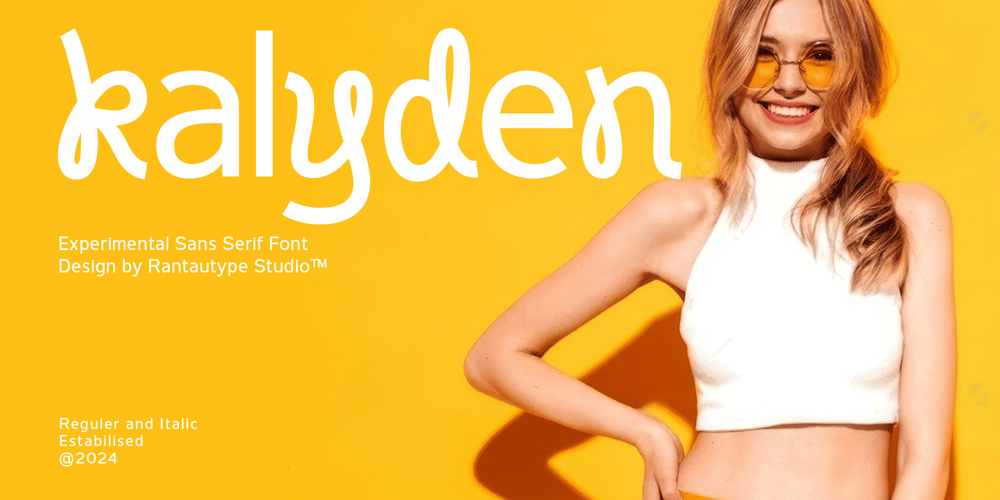
Kaliden Font Family was designed by Yudi Pratama Chandra and published by RantauType. Kaliden contains 2 styles and family package options. Kaliden is a experimental unique font with modern visual design. Kaliden come with unique alternate shape in Uppercase and Lowercase make your design project more memoriable and sophisticated. We keep this font look modern, elegant, unique, memoriable and eye catch.Kaliden is a perfectly choice for any creative endeavor, chic, lifestyle design such as logos, advertisements, watermark on photography, stationery, branding project, display and magazine, invitation, corporate brand, product design, label, business project and many other project with elegant touch.What you have: Standart Glyphs Numberial and Functional Alternate and Ligature Works on PC & Mac Simple installations Accessible in Adobe Illustrator, Adobe Photoshop, Adobe InDesign, even work on Microsoft Word. Fonts include Multilingual Character for: Afrikaans, Albanian, Asu, Basque, Bemba, Bena, Breton, Chiga, Cornish, Dutch, English, Estonian, Filipino, Finnish, Friulian, Galician, Gusii, Indonesian, Irish, Italian, Kabuverdianu, Kalenjin, Kinyarwanda, Luo, Luxembourgish, Luyia, Machame, Makhuwa-Meetto, Makonde, Malagasy, Manx, Morisyen, North, Ndebele, Nyankole, Oromo, Portuguese, Quechua, Romansh, Rombo, Rundi, Rwa, Samburu, Sango, Sangu, Scottish, Gaelic, Sena, Shambala, Shona, Soga, Somali, Spanish, Swahili, Swedish, Swiss, German.Thank you for your purchase!Hope you enjoy with our font!